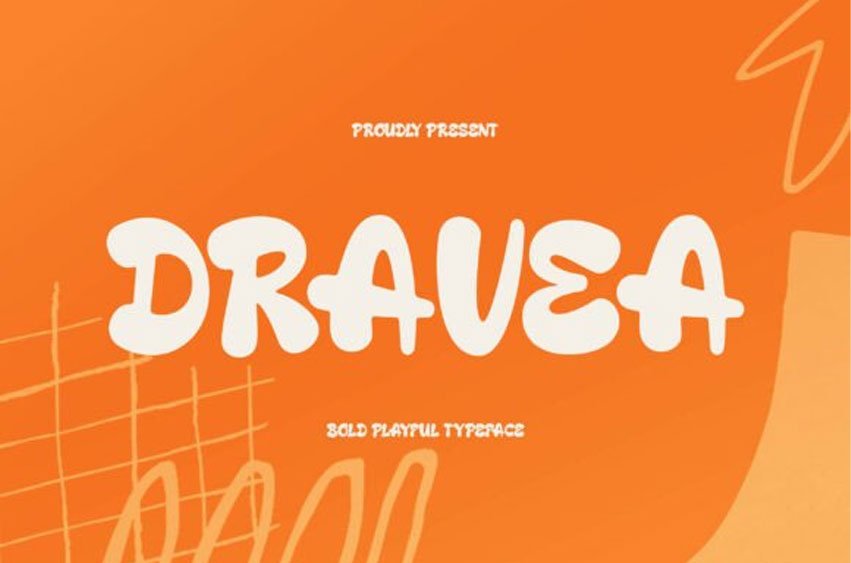
Dravea Font is a bold playful display font designed to bring energy, creativity, and a cheerful personality to your designs. Featuring rounded shapes, and expressive details, Dravea creates a fun and eye-catching visual style that instantly grabs attention.
Its bold appearance ensures strong readability while maintaining a friendly and approachable character, making it perfect for designs that need a vibrant and memorable look.